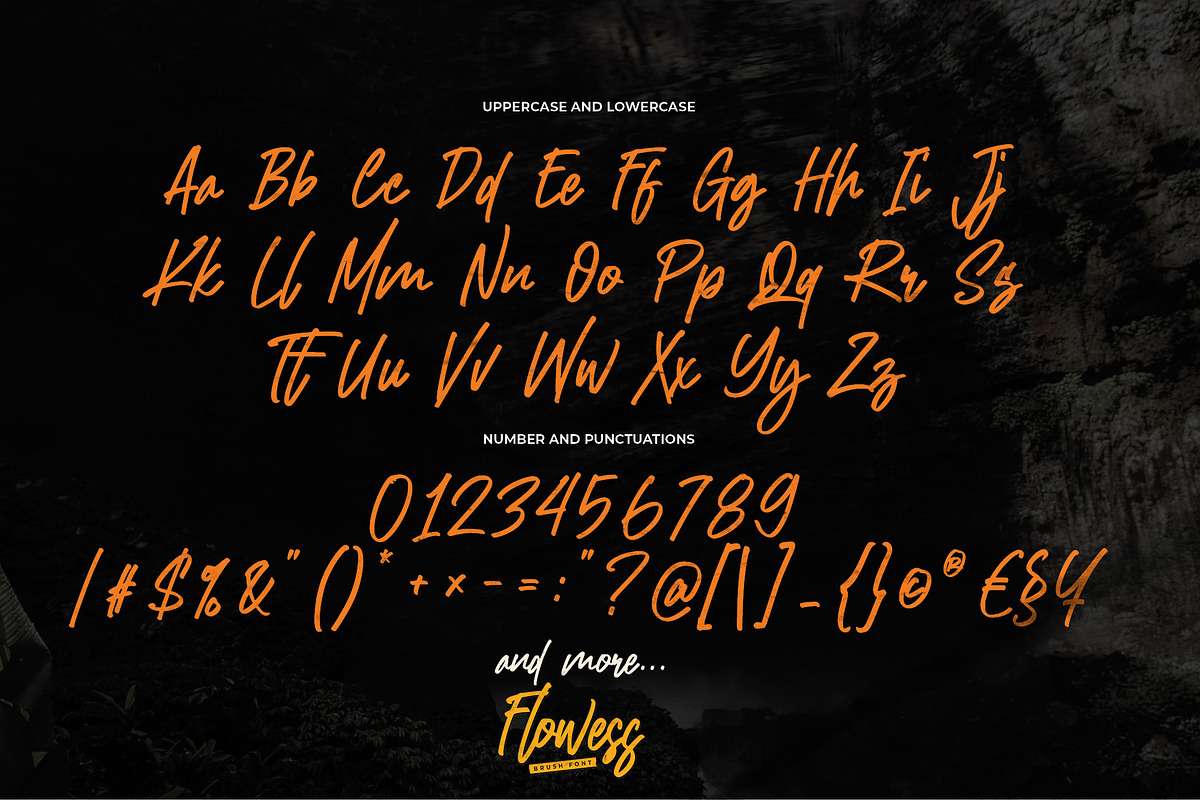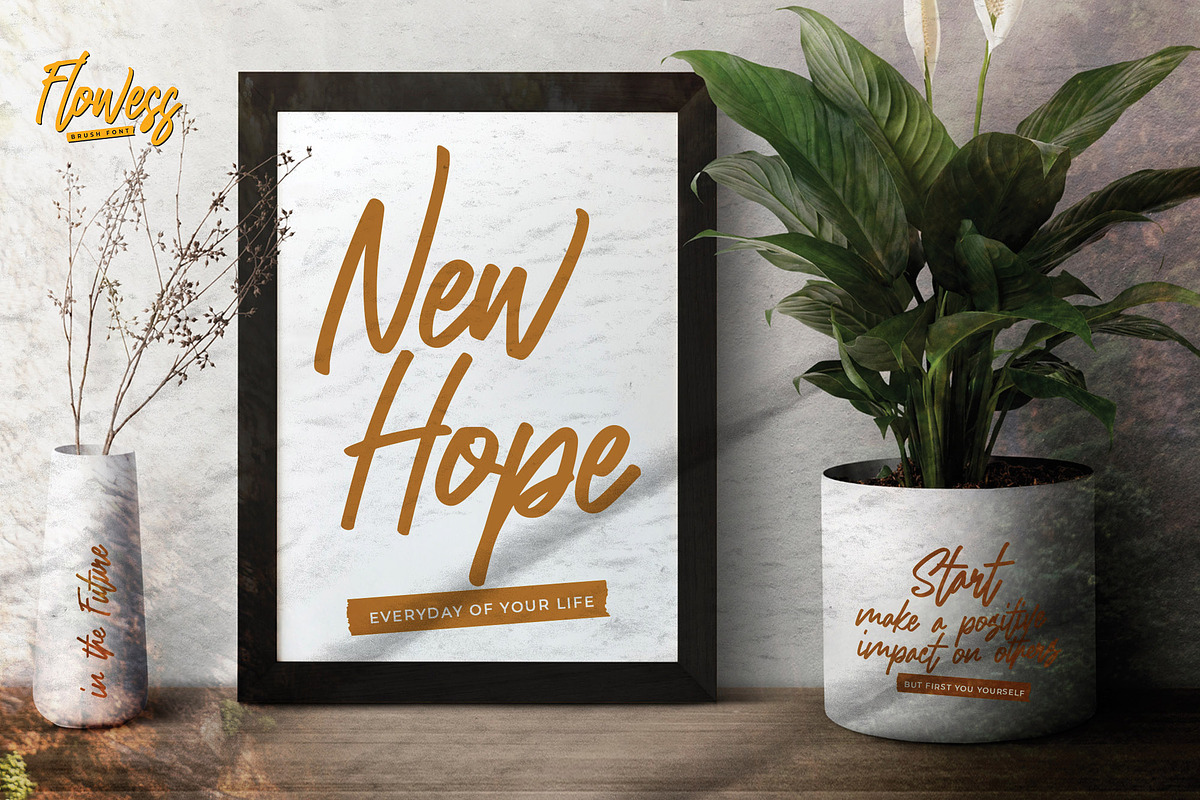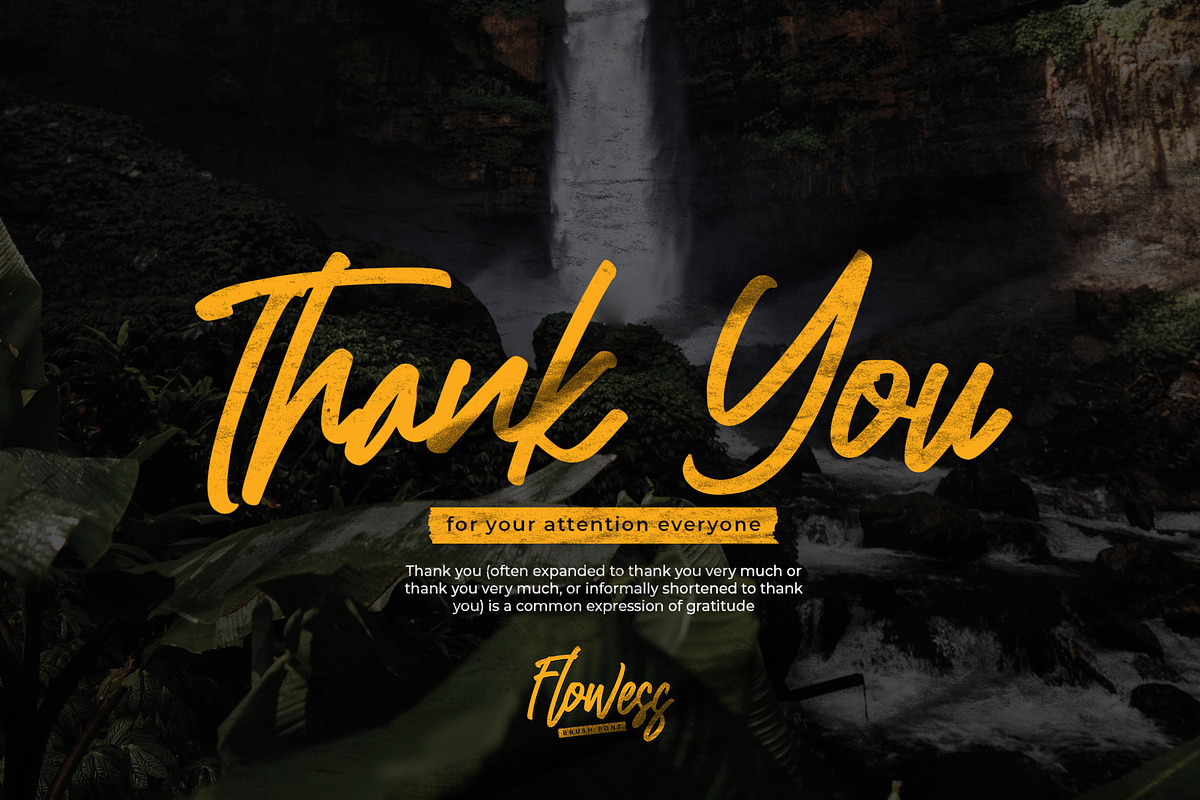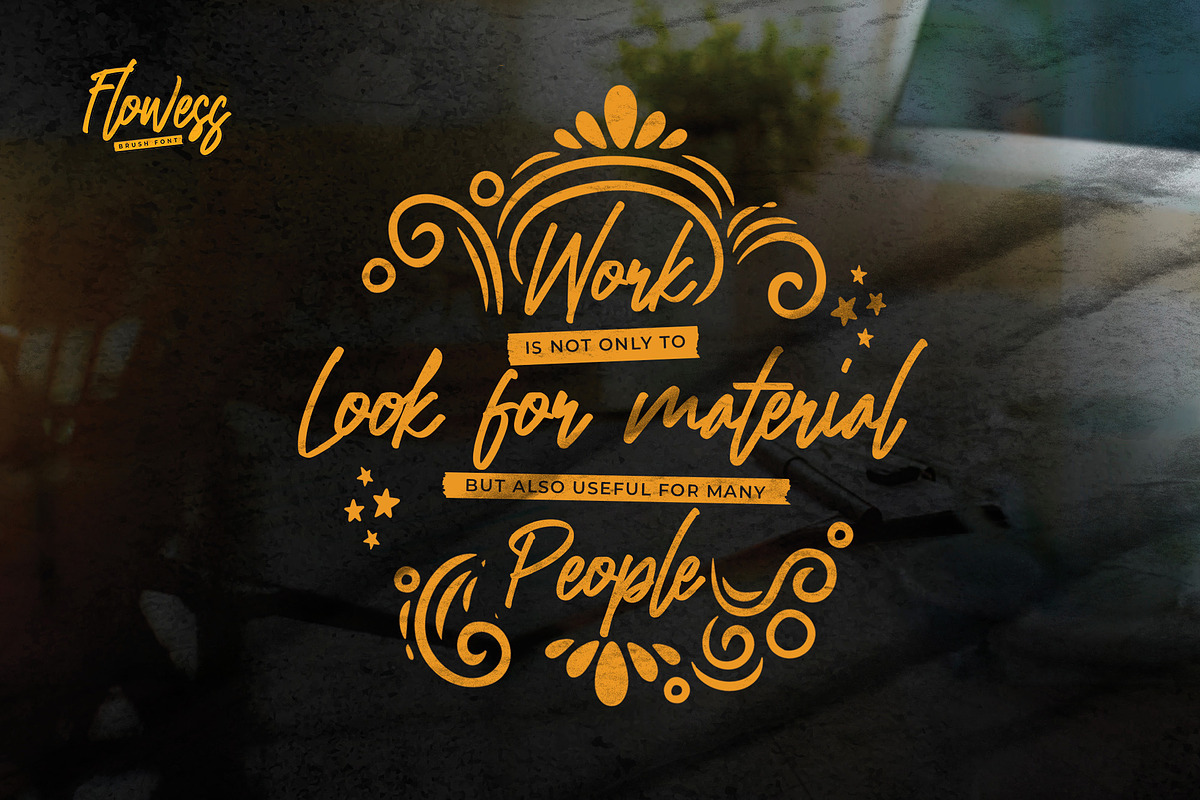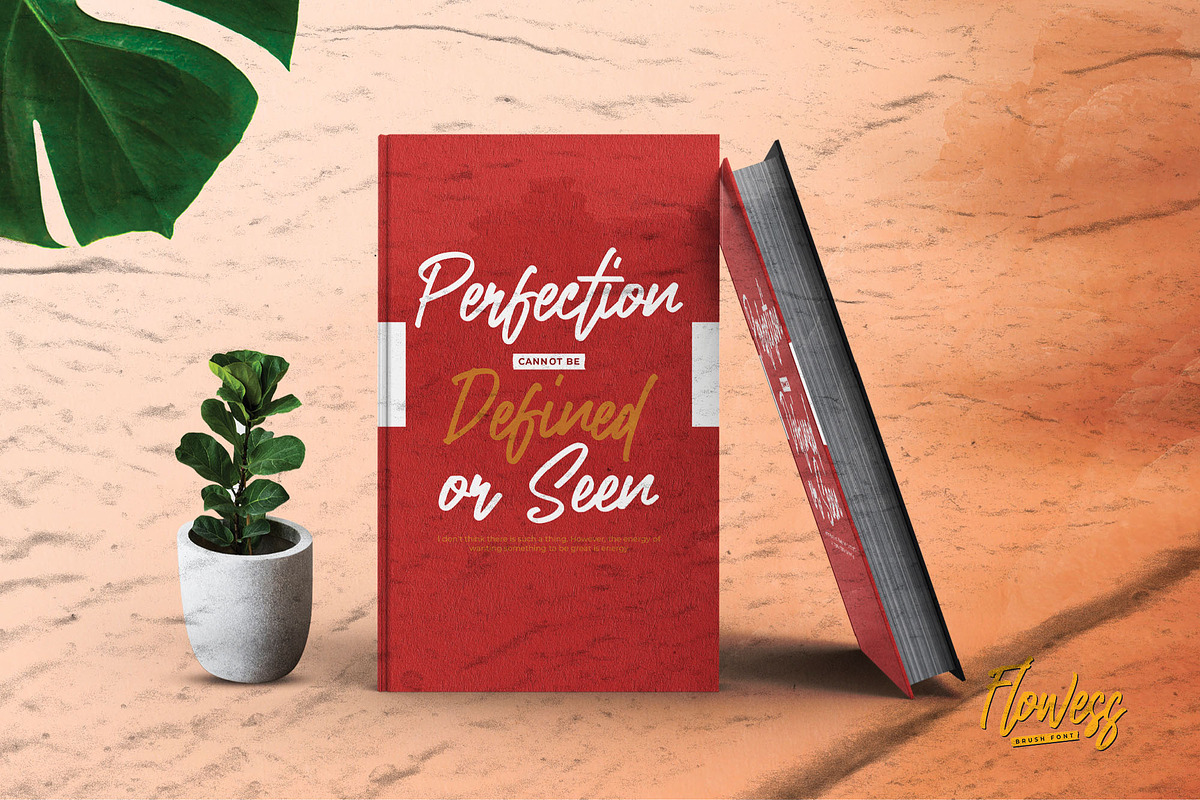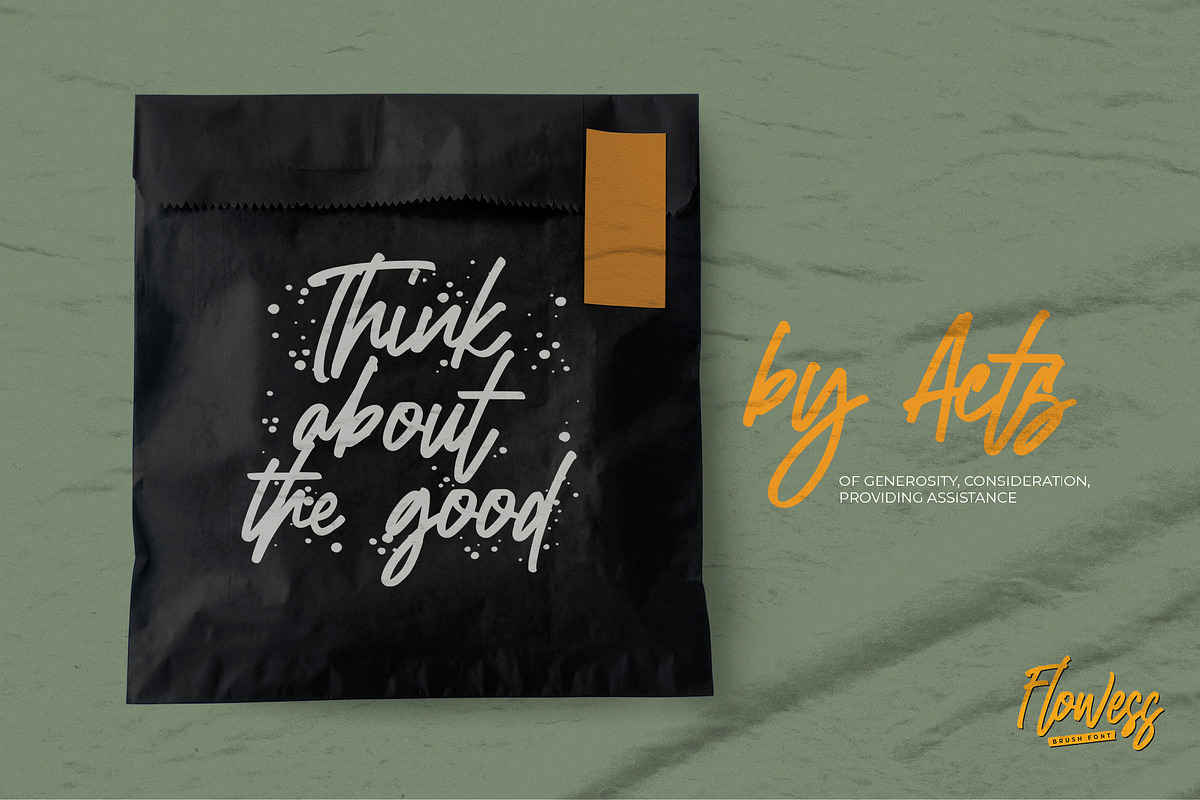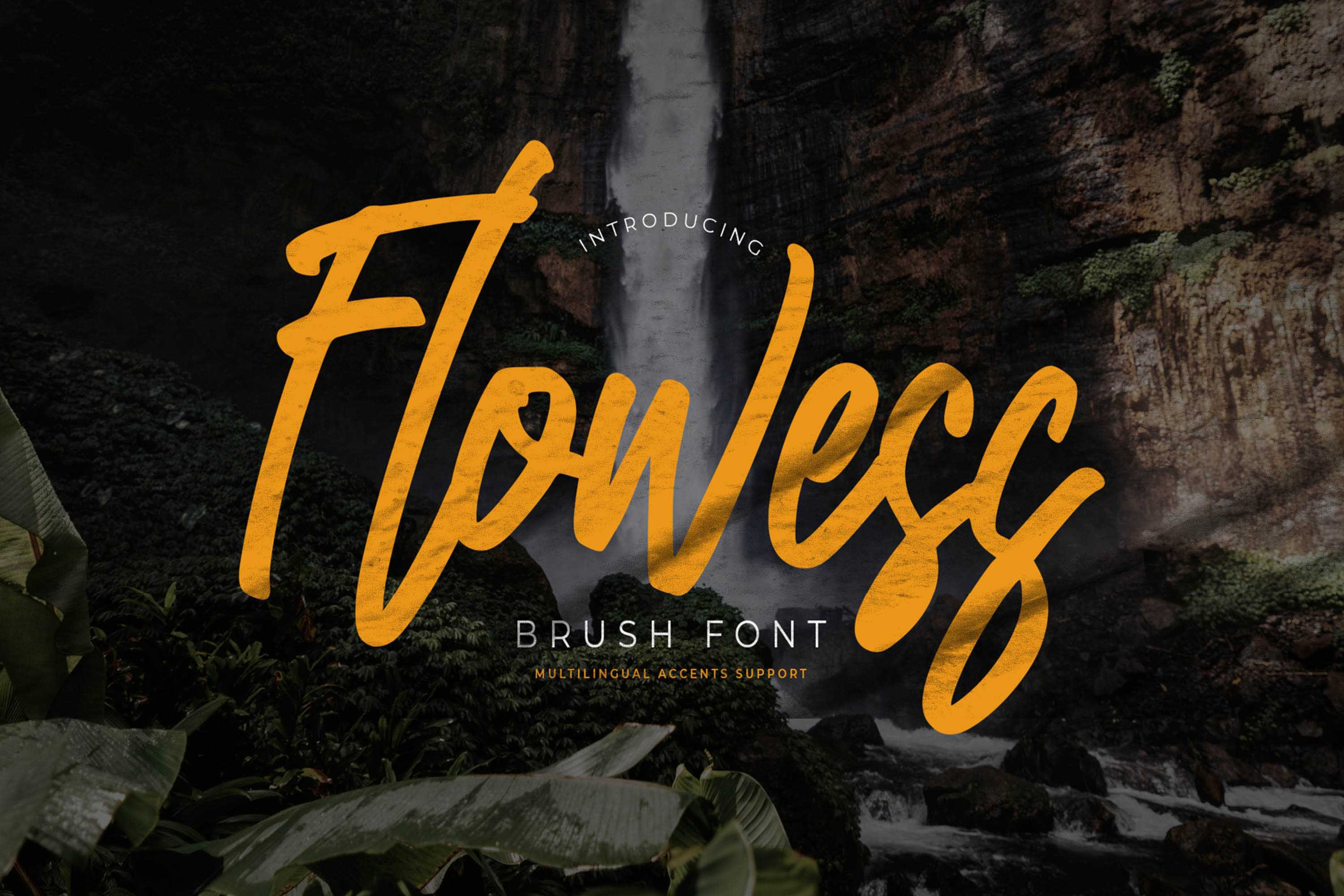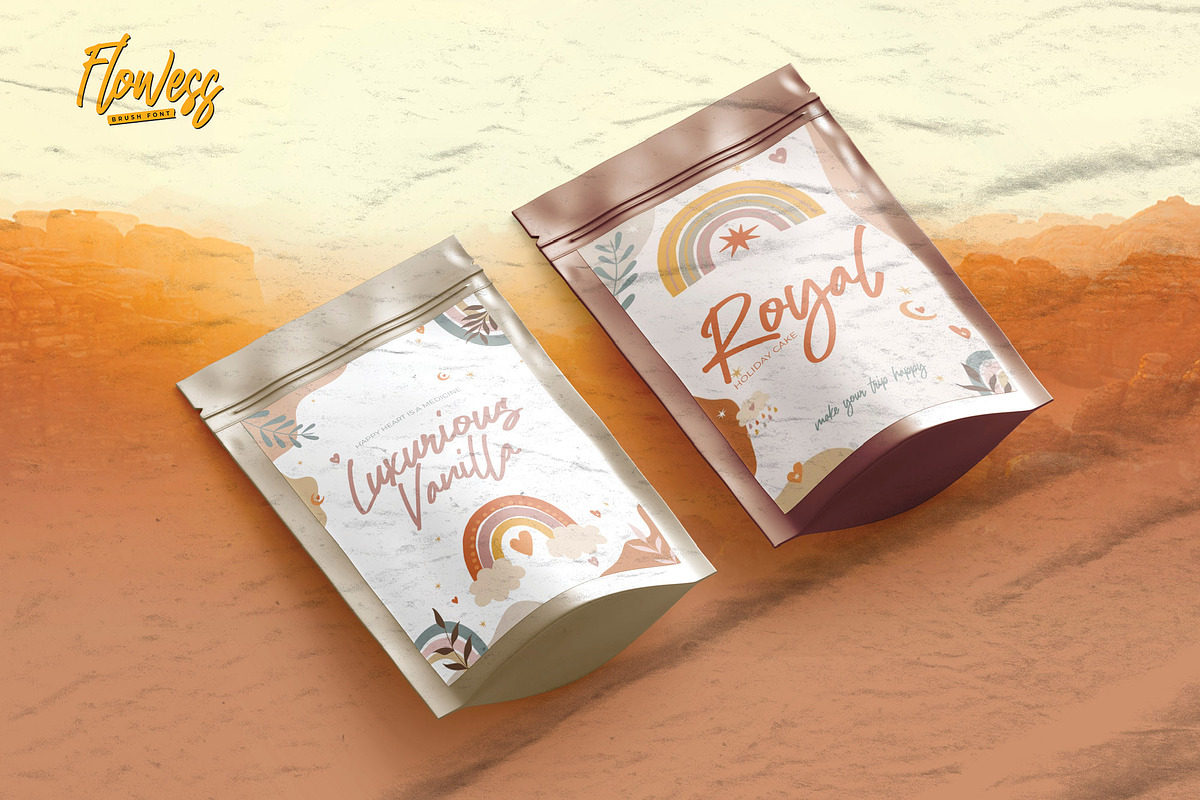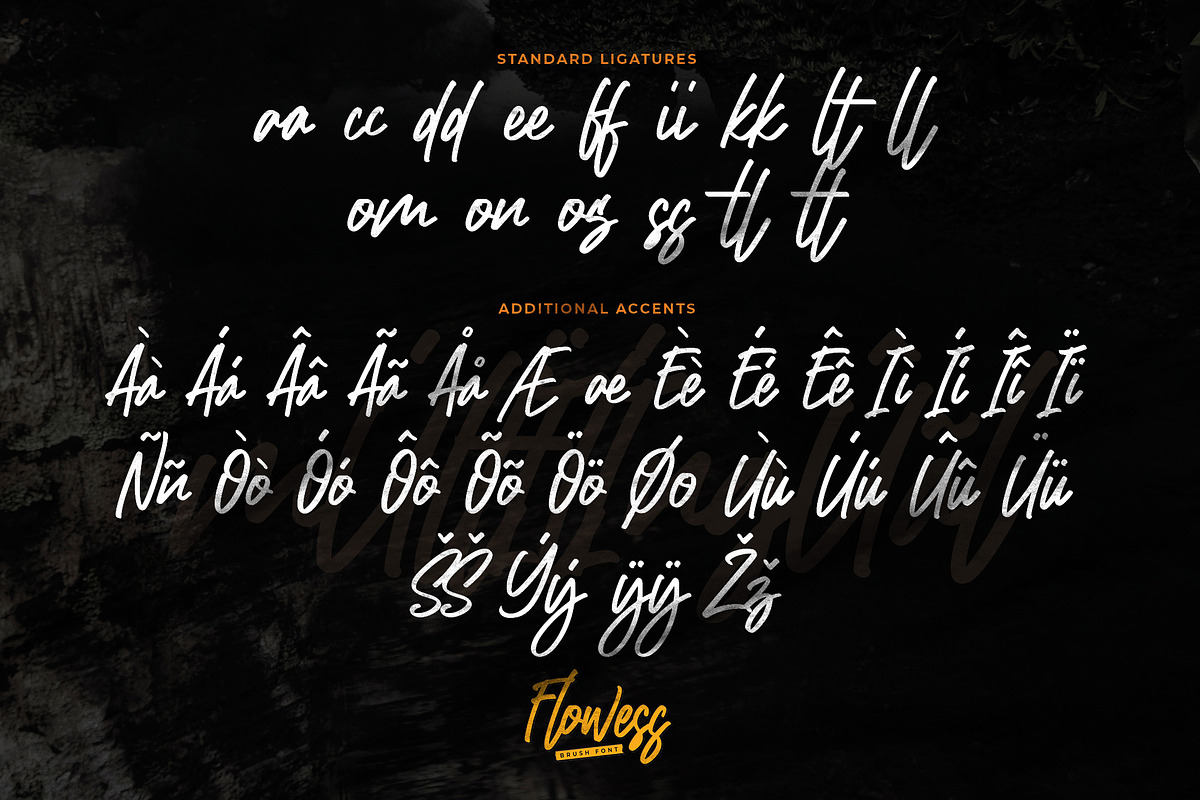
Flowess - Brush Font
Hello Everyone, introduce our new product Font Flowess ,This Is Brush Font is a Textured Natural Style and classy style with a clear style and dramatic movement.
This font Flowess is great for your next creative project such as logos, printed quotes, invitations, cards, product packaging, headers, Logotype, Letterhead, Poster, Design this font is great for your creative projects such as watermark on photography, and perfect for logos & branding, invitation,advertisements,product designs, stationery, wedding designs,label ,product packaging, special events or anything that need handwritting taste.
That is has charming, authentic and relaxed characteristic more natural look to your text.
You can activate 23 Ligatures and 34 Alternate glyphs OpenType panel.
- Ligatures glyphs
- Alternate glyphs